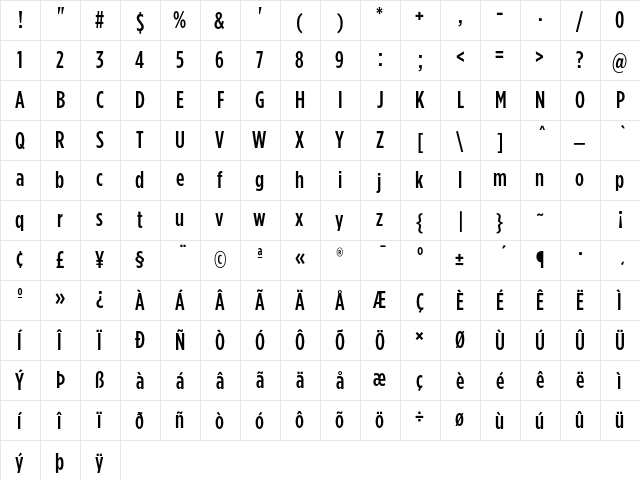
Gotham Condensed Medium
Design Context for Gotham Condensed Typeface
Gotham Condensed takes a measured approach to typography — its balanced proportions and neutral character make it a reliable workhorse for both digital and print work. Its narrow stance lets it pack a punch even in space-constrained designs.
Pro Tip: Use Gotham Condensed in both headline and body roles to test its range before committing to a single application.